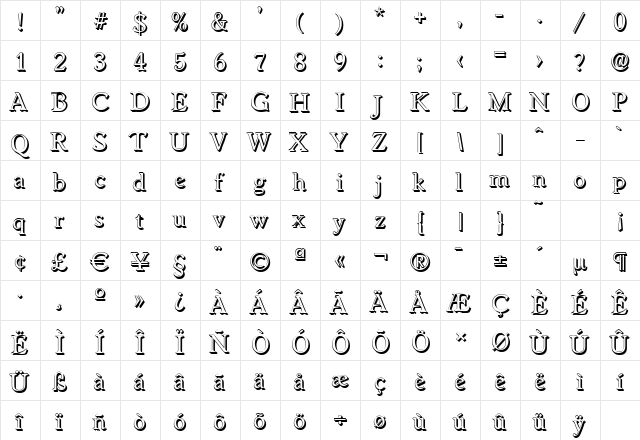
WorcesterShadow Regular
Design Context for WorcesterShadow Typeface
WorcesterShadow brings ornamental detail and strong personality to headlines and identities, where visual impact matters more than quiet functionality.
Font Pairing: Pair with a clean neutral sans-serif for body copy to let WorcesterShadow's character lead without overwhelming the composition.
Pro Tip: Use WorcesterShadow exclusively at display sizes — it was designed to be seen, not read at length. Let a neutral companion handle body copy.